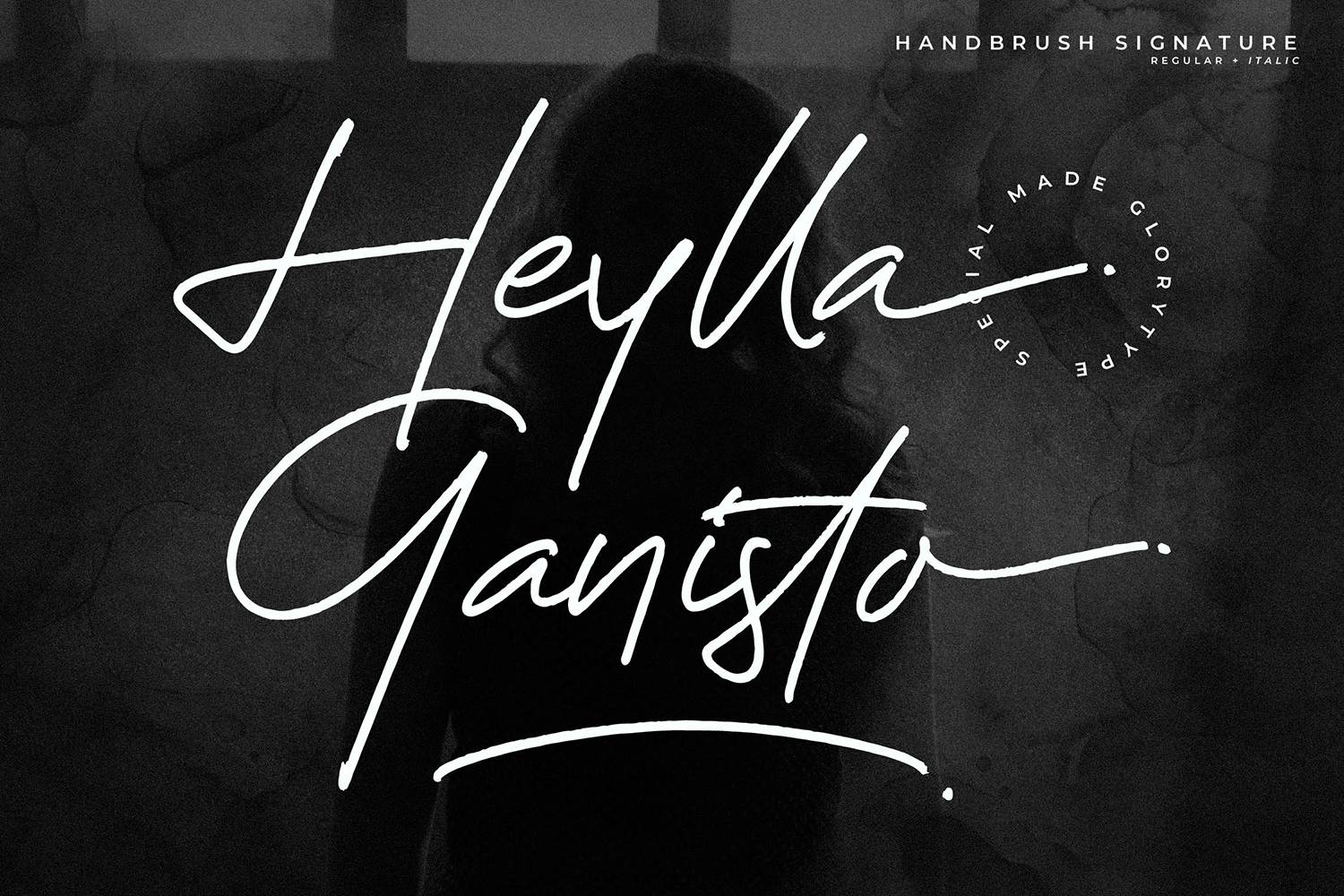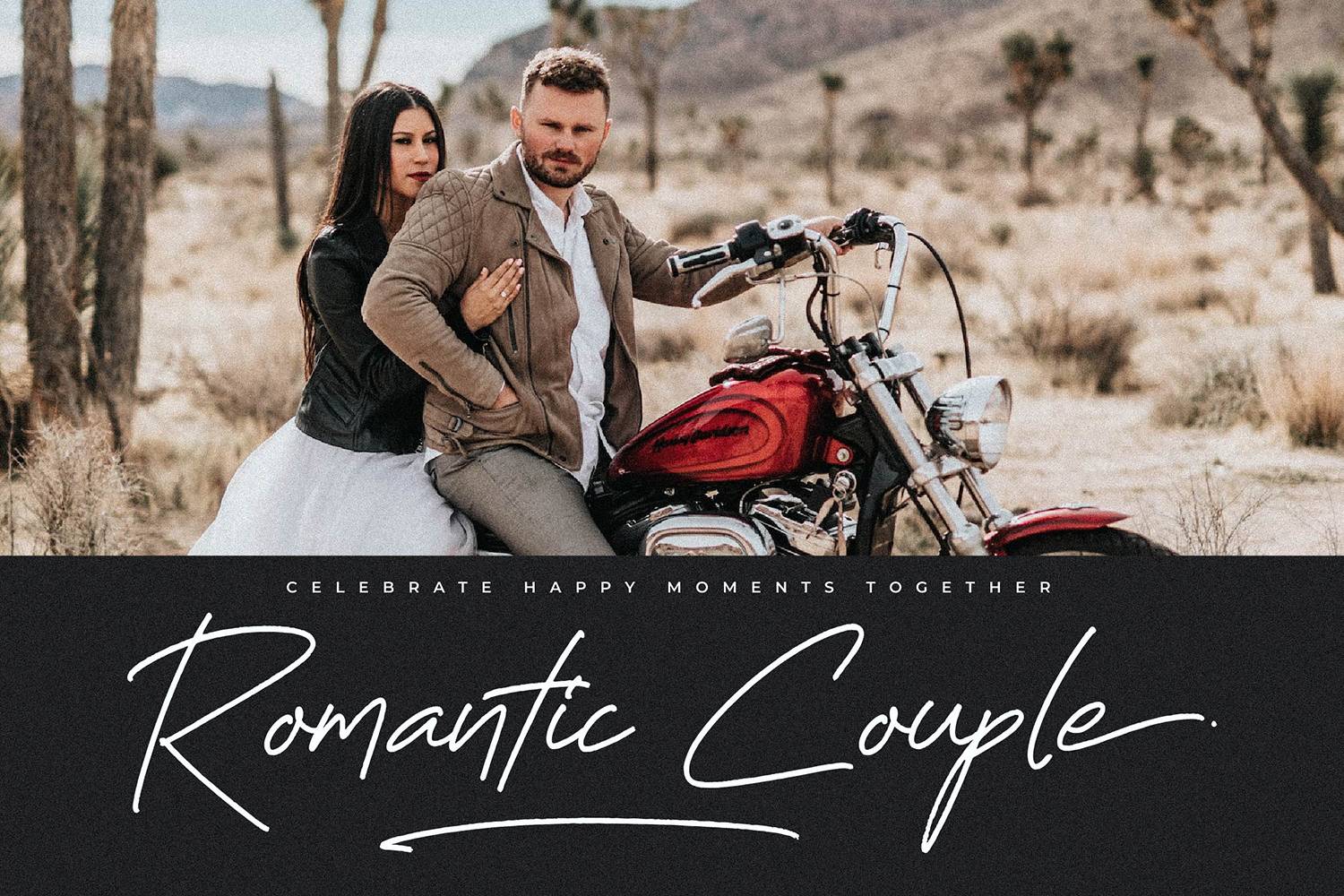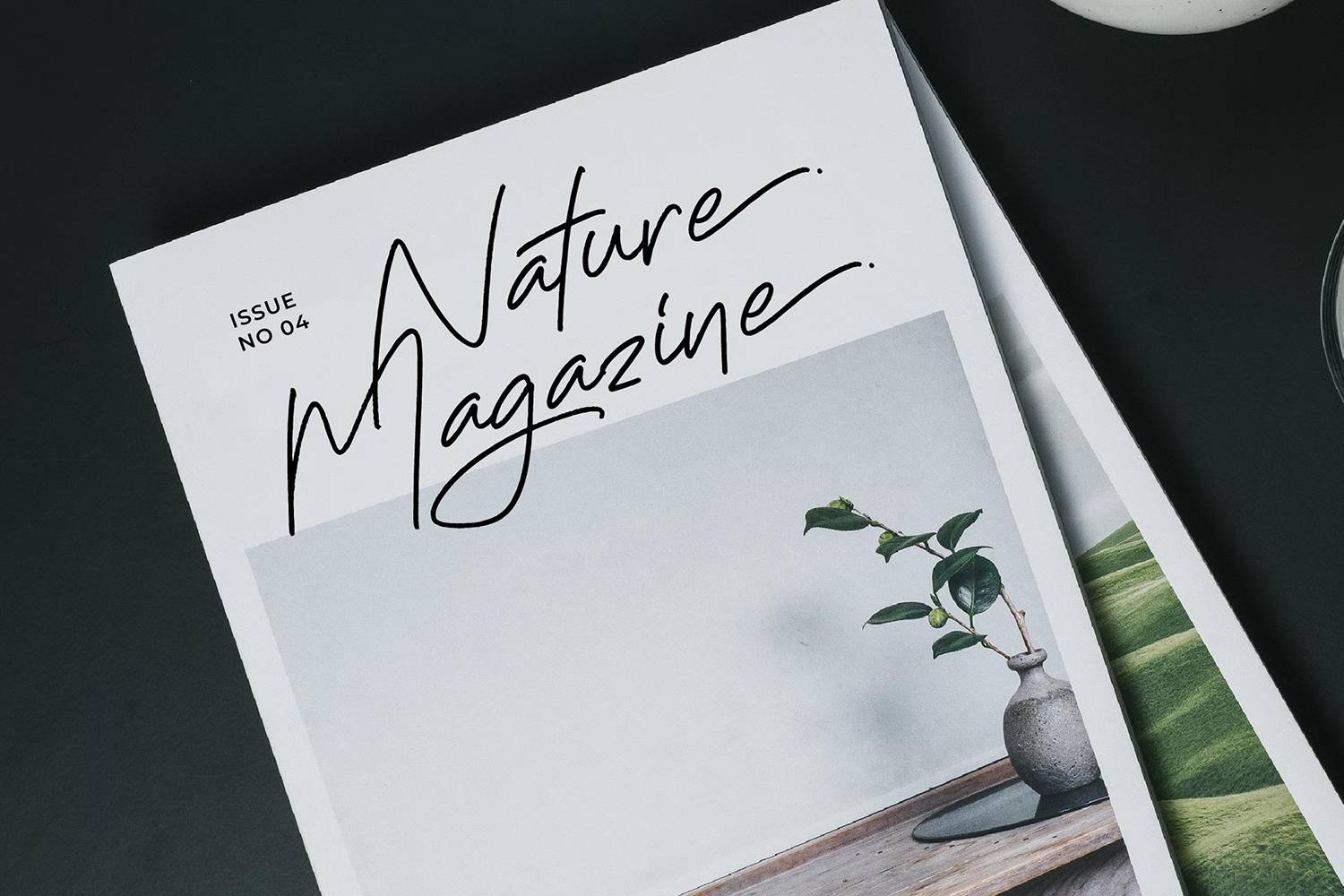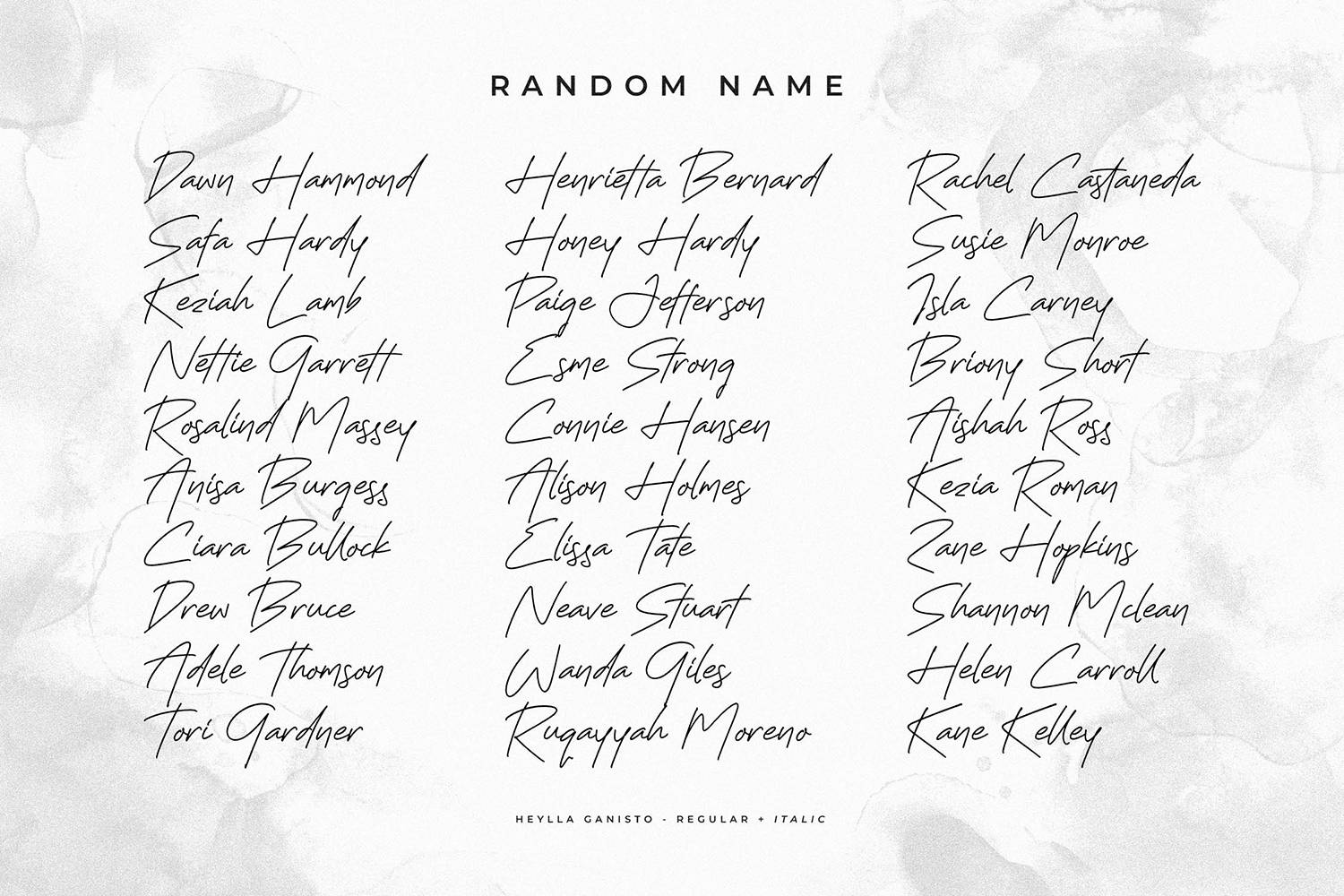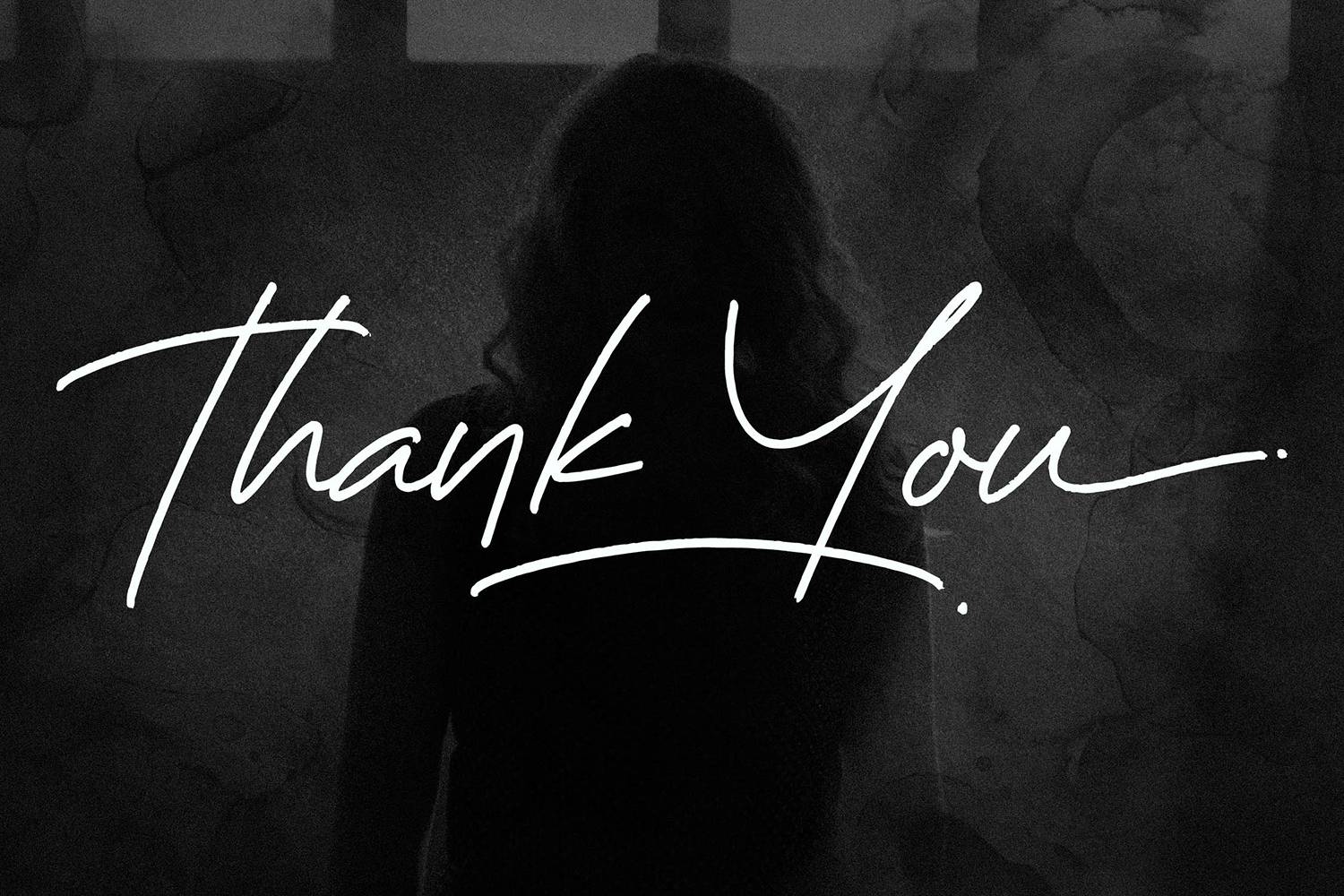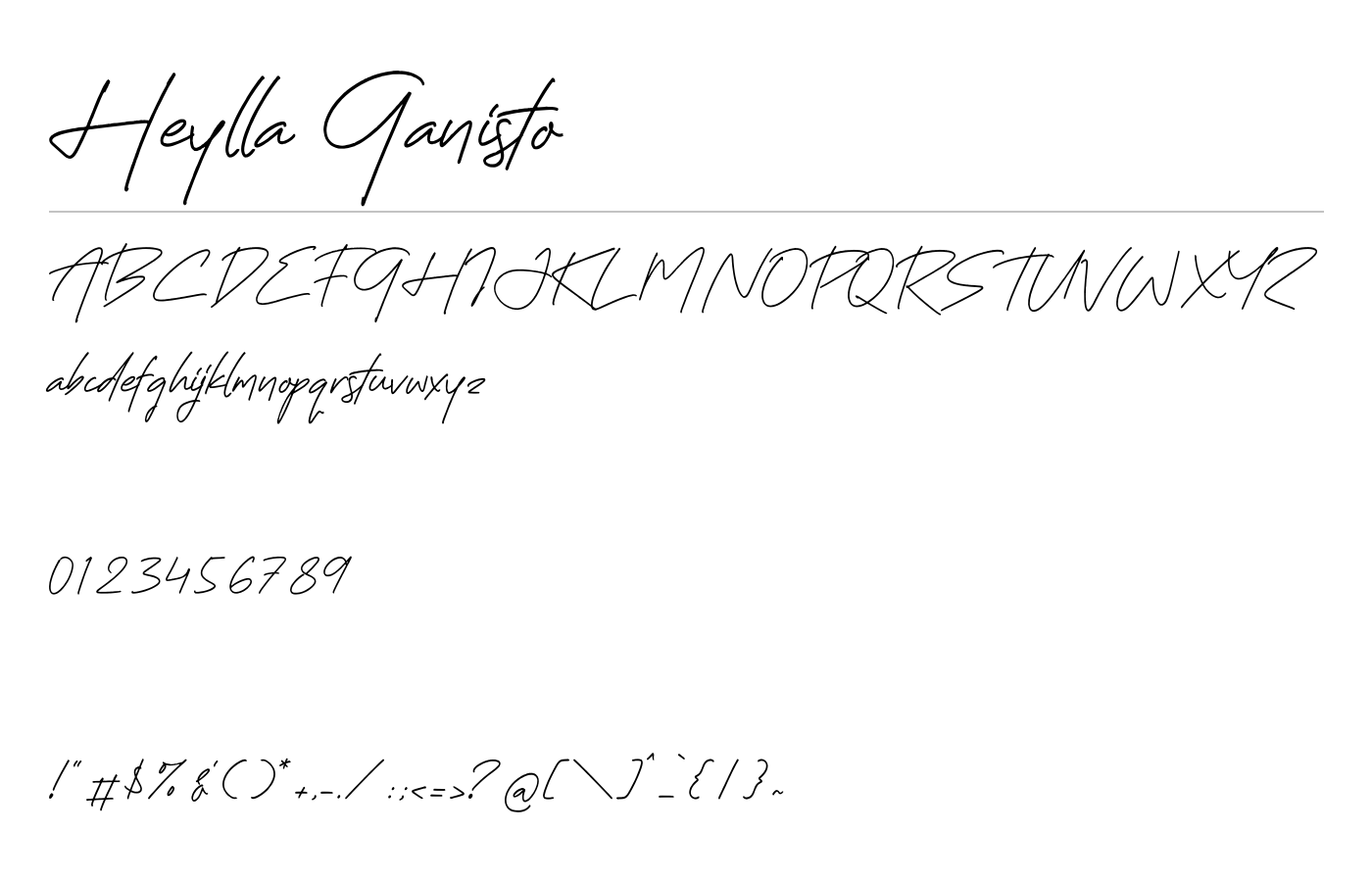
Heylla Ganisto is a light, elegant handwritten script font characterized by its delicate, flowing strokes and tall, narrow letterforms. Its airy and slightly irregular style gives a personal, artistic touch, making it ideal for creative branding, invitations, and stylish headlines where a modern yet intimate feel is desired. This font works well in projects that want to communicate sophistication and individuality with a handcrafted flair.
Heylla Ganisto Font